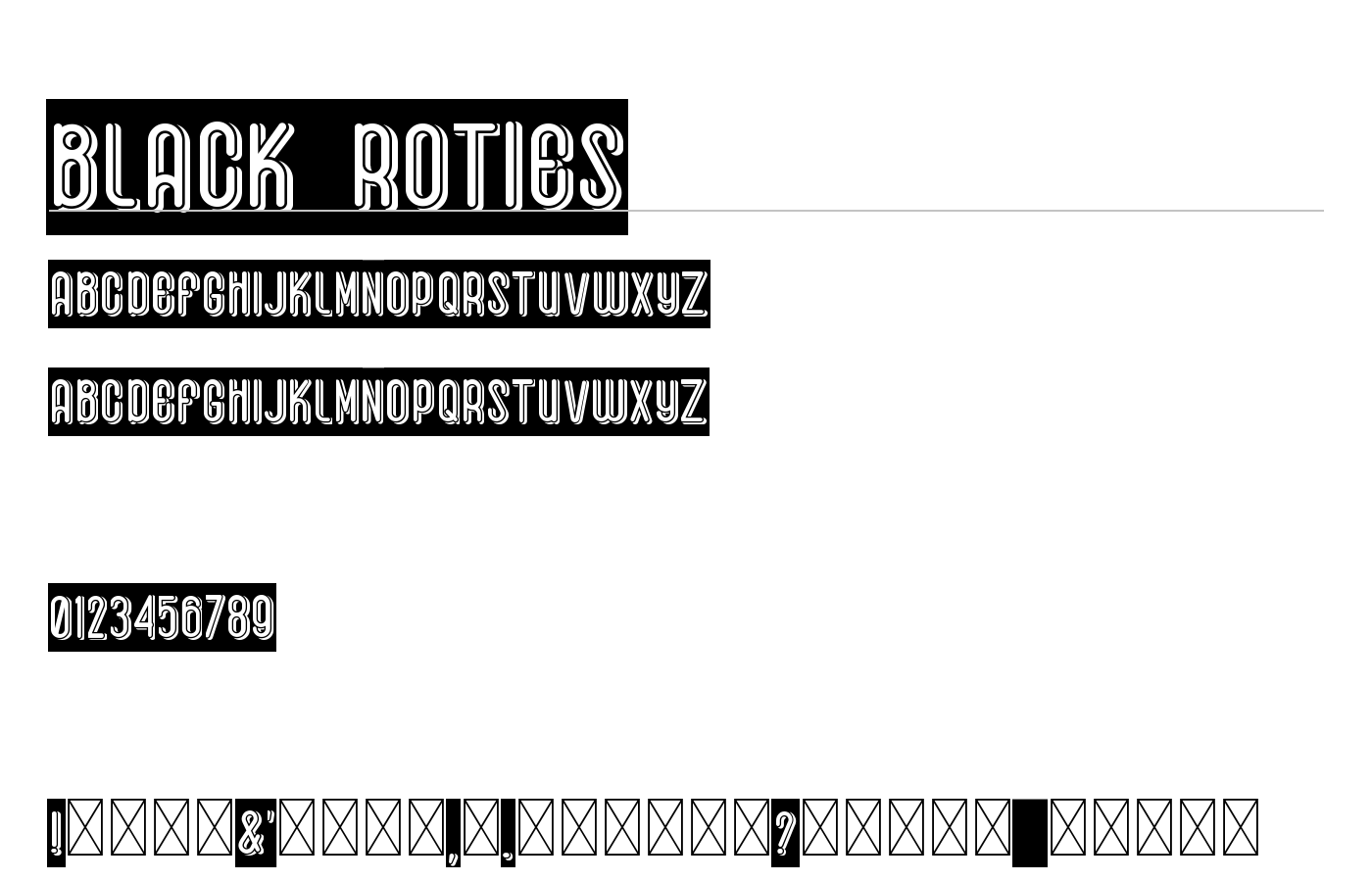
Black Roties is a bold, decorative sans serif font with a narrow, condensed width and a distinctive layered outline style that gives it a vintage yet modern flair. Its tall, upright letterforms with high contrast between strokes and playful curves make it ideal for eye-catching headlines, logos, and packaging where a strong statement and stylish personality are desired. This font works especially well for brands seeking a unique, retro-inspired look with a contemporary edge.
Black Roties Font
About Black Roties Font
| Font family | Black Roties Font |